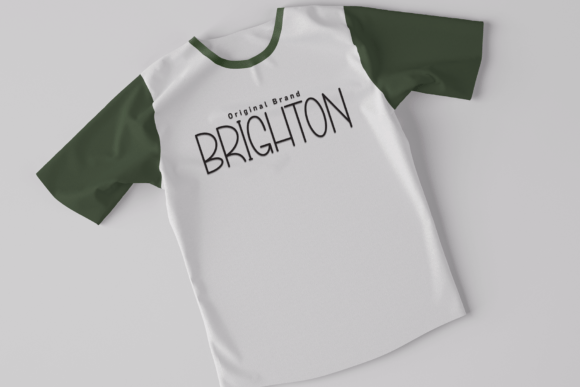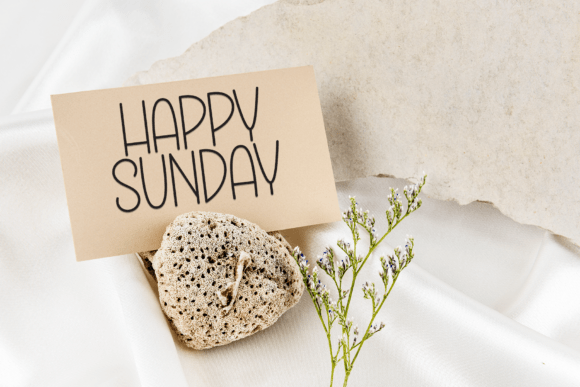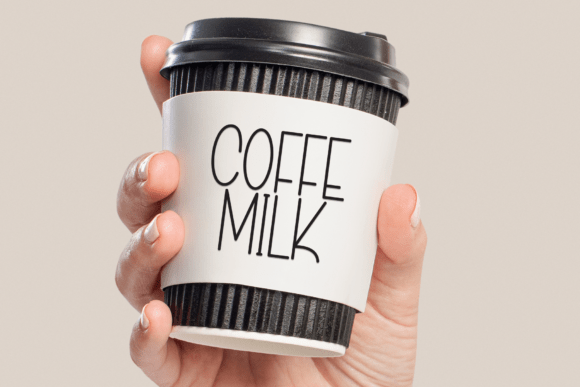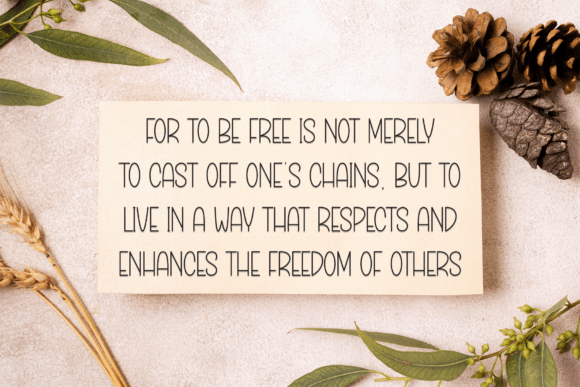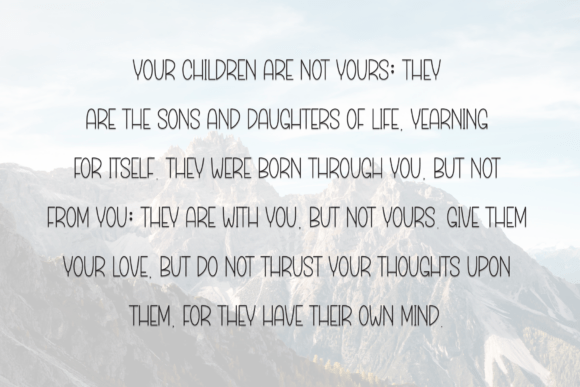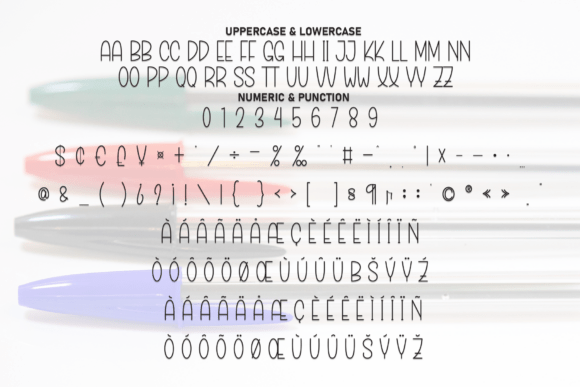
Designing with Precision: Unveiling the Balpoint Font
As designers, we’ve all been there – staring at a blank canvas, trying to bring our creative vision to life. Sometimes, it’s the smallest details that make the biggest impact. For me, it’s the perfect font that can elevate an entire design from bland to grand. And that’s exactly where the Balpoint Font comes in.
This technical and sleek display font is a game-changer for designers seeking a clean, minimalist aesthetic. With its consistent monolinear weight, organized vertical rhythm, and soft, rounded terminals, the Balpoint Font provides an airy and professionally balanced visual presence. Whether you’re working on architectural title blocks, minimalist brand identities, or clean editorial layouts, this font is an ideal choice for designers who value precision and sophistication.
Key Features of Balpoint Font
- Unique Characteristics: Balpoint features a unique blend of geometric and script elements, with a distinctive, hand-drawn feel
Review of Balpoint Font
I’ve had the chance to work with Balpoint Font, and overall, it’s a decent choice for designers. Here’s what I think:
- ✨ Unique aesthetic: Balpoint Font has a distinctive, retro vibe that can add a touch of sophistication to your designs.
- ✨ High legibility: The font is well-designed for body text, making it easy to read in various contexts.
- ✨ Versatile: Balpoint Font comes in multiple weights and styles, allowing you to experiment with different looks.
- ⚠️ Limited expressiveness: While Balpoint Font is great for body text, it may not be the best choice for headlines or titles that require more emphasis.
- ⚠️ Not ideal for small sizes: The font’s clarity and legibility may suffer when used at very small sizes.
While Balpoint Font has its strengths, it’s not a one-size-fits-all solution. It excels in specific contexts, such as body text or supporting elements, but may not be the best choice for more demanding design tasks. Nevertheless, it’s a solid addition to any designer’s toolkit, and its unique aesthetic can add a nice touch to your work.
Tips for Getting the Most Out of Balpoint Font
Use Balpoint Font for headings and titles to add a touch of elegance and sophistication to your designs.
Pair Balpoint Font with a bold or sans-serif font for a striking contrast.
Experiment with different font sizes and colors to create a unique visual effect.
Use Balpoint Font for:
Headings and titles in marketing materials, such as brochures and flyers.
Logo designs and branding materials.
Editorial content, such as magazine articles and blog posts.